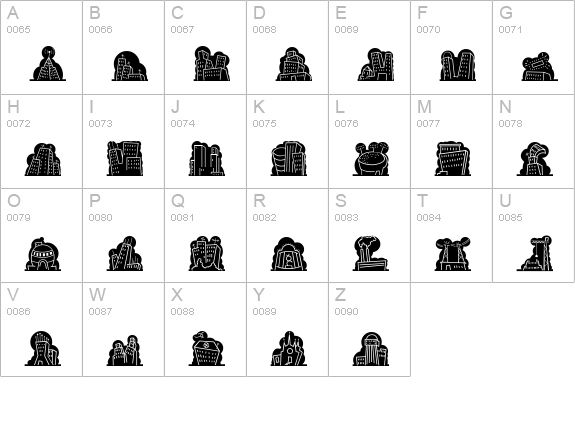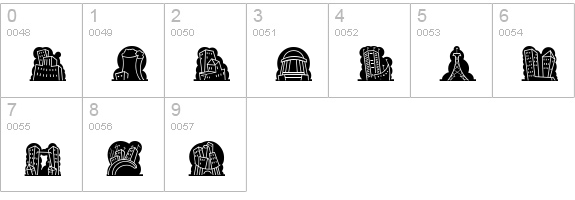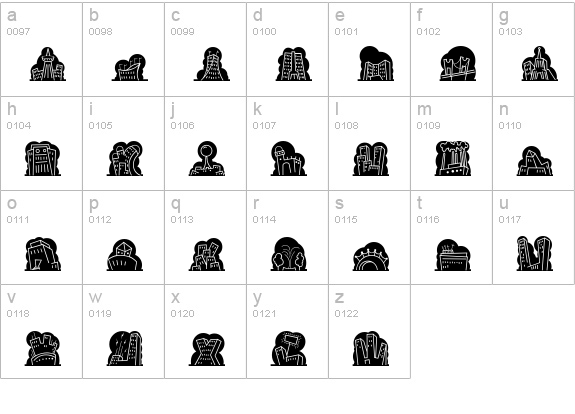
Mini Pics Naked City Night Font Details
Mini Pics Naked City Night is a captivating and edgy font that exudes a mysterious and urban vibe. With its unique and bold design, this font is perfect for adding a touch of modernity and sophistication to your projects. The sleek and stylish letterforms of Mini Pics Naked City Night make it ideal for creating eye-catching headlines, posters, logos, and more. What sets Mini Pics Naked City Night apart is its versatility and ability to convey a sense of nightlife and excitement. Whether you're designing for a nightclub event, a fashion brand, or a trendy urban campaign, this font is sure to make a statement. The best part? Mini Pics Naked City Night is available for free download at FontsMarket.com, allowing you to easily access this fantastic font and enhance your designs with its unique flair. Don't miss out on the opportunity to elevate your projects with the distinct charm of Mini Pics Naked City Night.